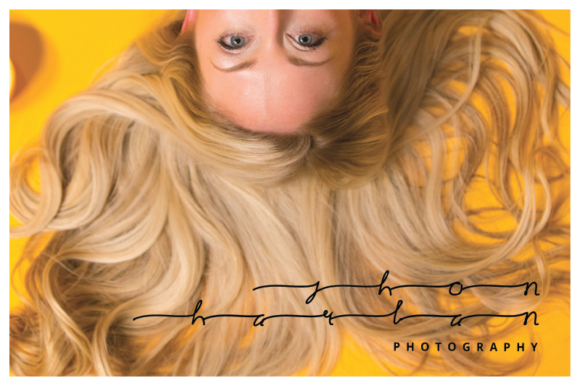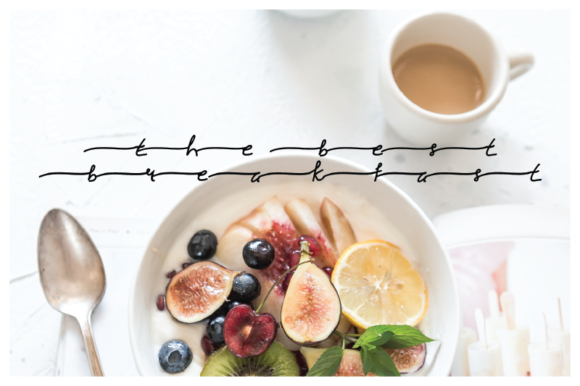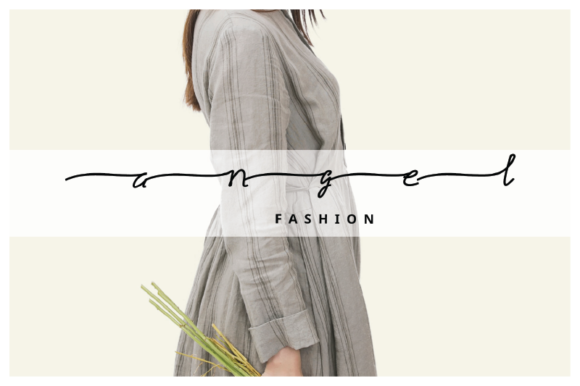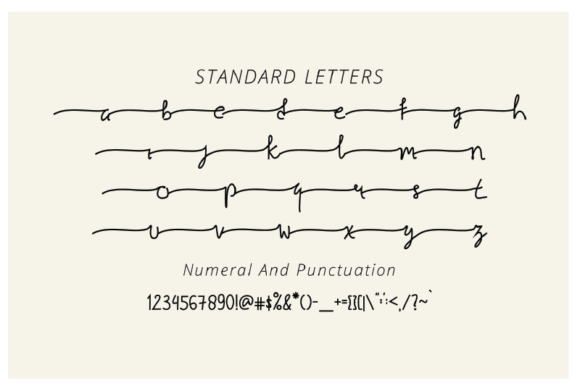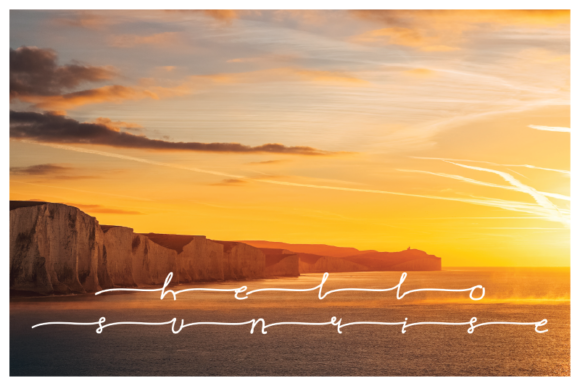
Natuna Font
Natuna is a magical handwritten font carefully created with a touch of elegance. It’s perfect for creating outstanding designs, such as branding, packaging, logos, social media posts, stationery and much more!